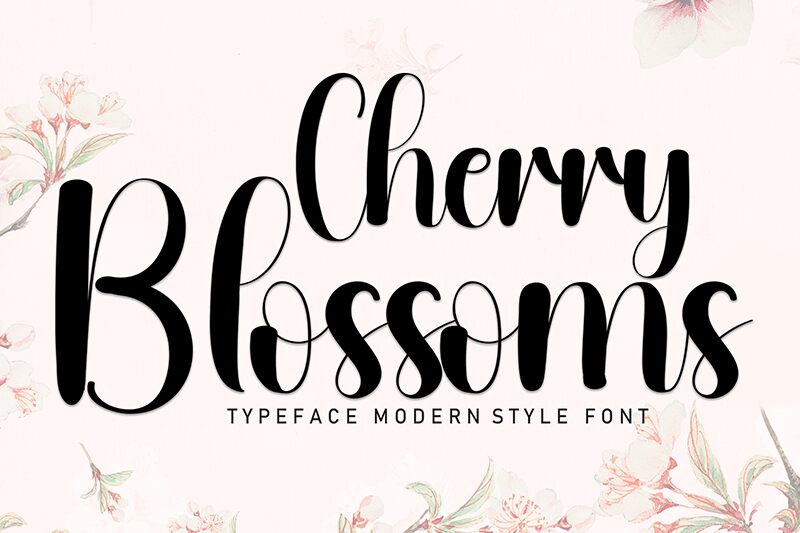
Cherry Blossoms
Cherry Blossoms font is a calligraphy font rooted in modern applications, from designer Andi Moz. A romantic and elegant flowing script font, the typeface has both wide cursive letters with expressive curves and thin condensed ones, returning a well-organised contrast. Enjoy entwining designs for all your occasions.
Get the most out of this free calligraphy font when customizing logos, packaging designs, labels, invitations for weddings and events, decor items like pillow covers and signs. Typographic projects would also benefit from the suggestive nature of Cherry Blossoms as do online publications.